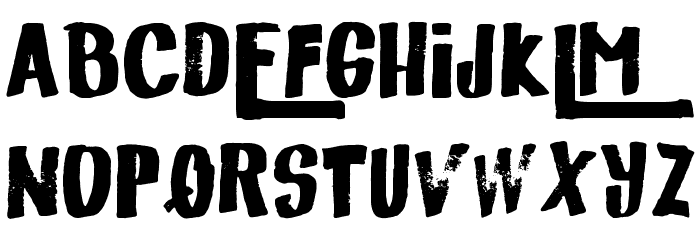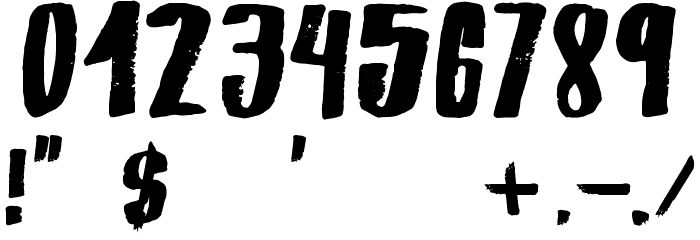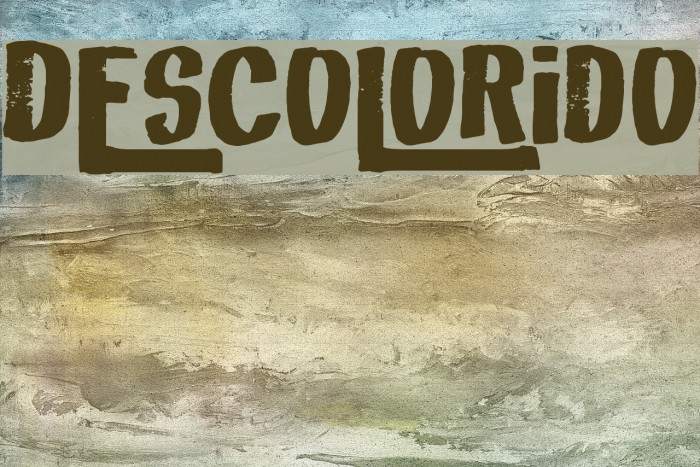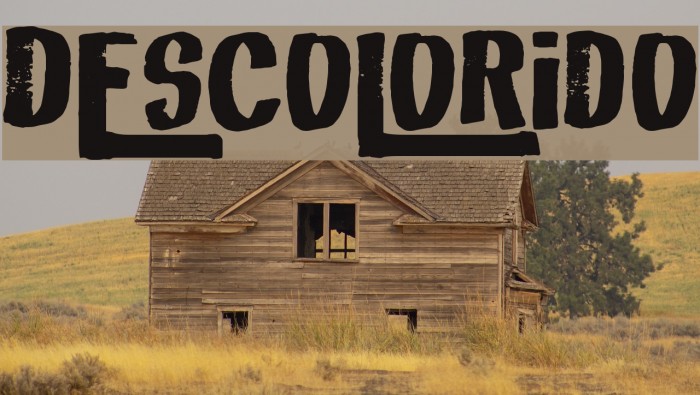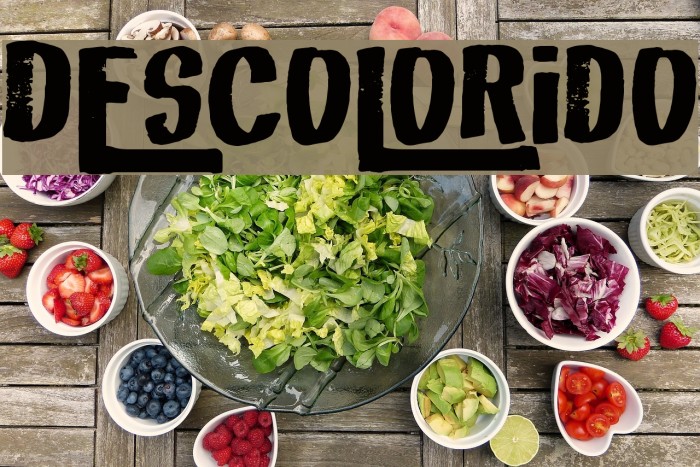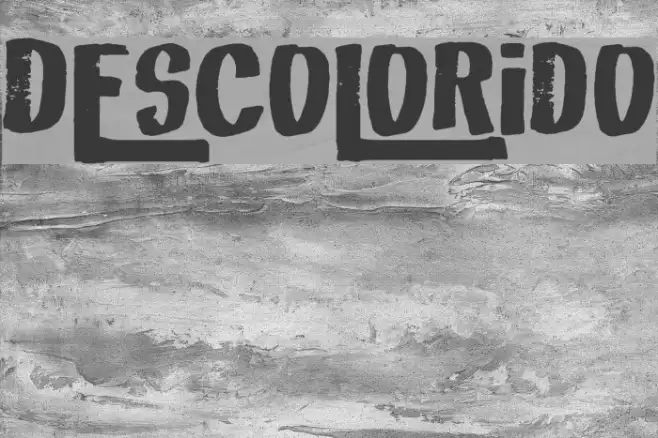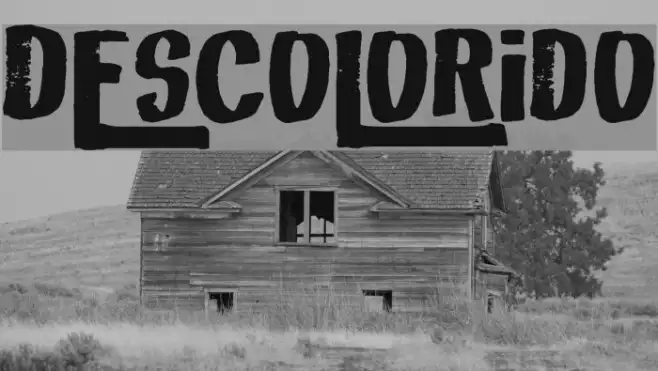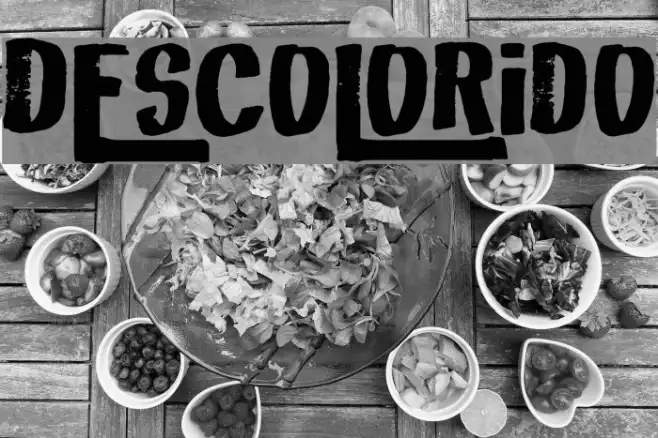
Descolorido Font
This font features a distressed, grunge style with a bold and impactful presence. The characters are heavily textured, giving them a worn and rugged appearance. The uppercase and lowercase letters maintain a consistent style, with slightly irregular edges that enhance the hand-crafted feel. The numbers and special characters follow the same aesthetic, ensuring a cohesive look across all elements. This font is perfect for projects that require a raw, edgy vibe, such as music posters, urban-themed designs, or any creative work that benefits from a bold statement.
A bold, distressed font with a grunge, hand-crafted style.
- Font: Descolorido
- Proposed Projects: Ideal for music posters, urban-themed designs, and bold creative projects.
- Overall Style: Grunge, Edgy, Hand-crafted
- Use Case: Headlines, Posters, Logos